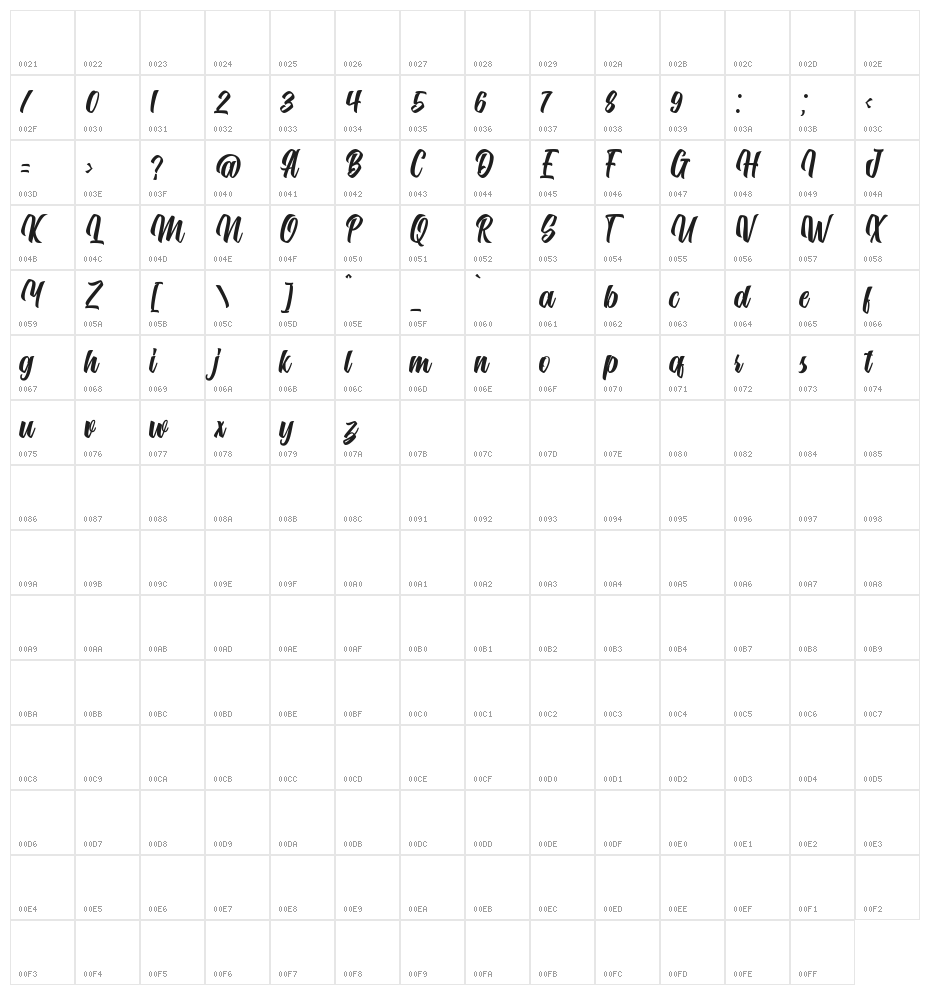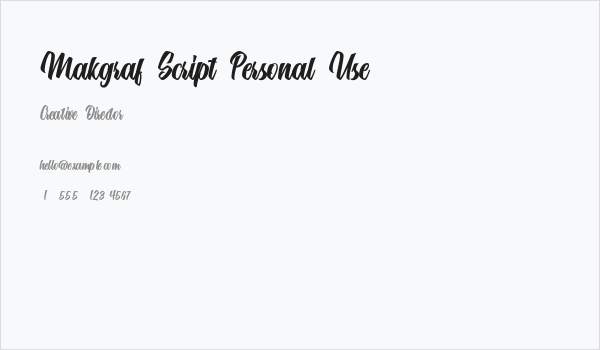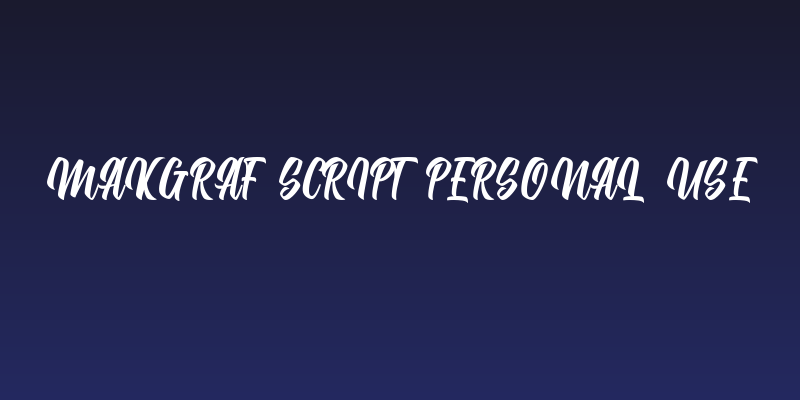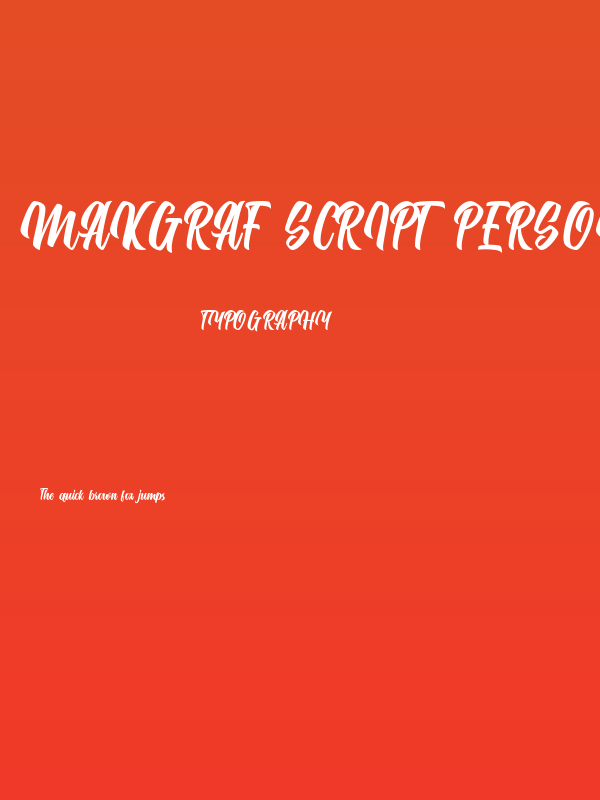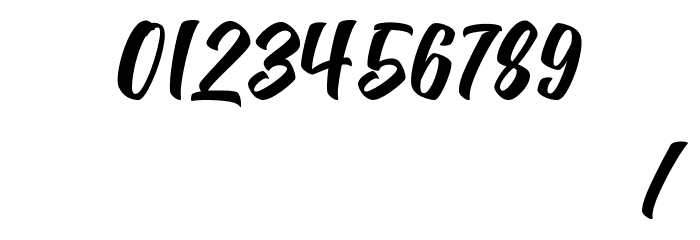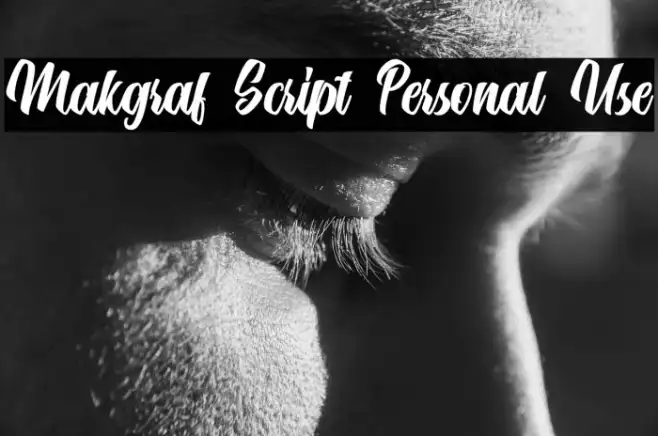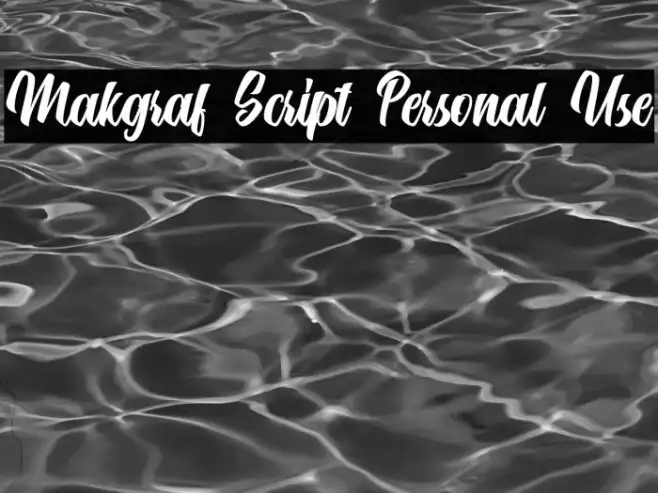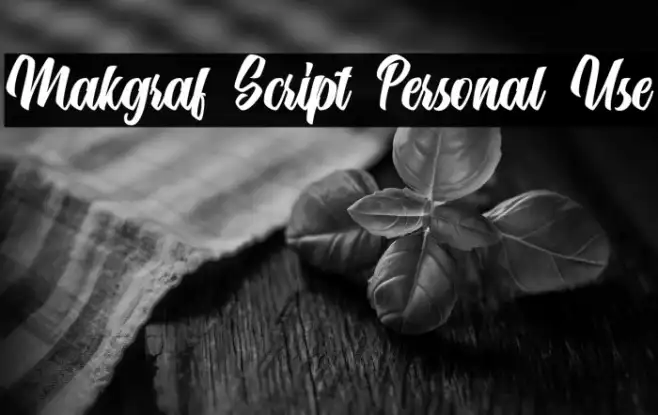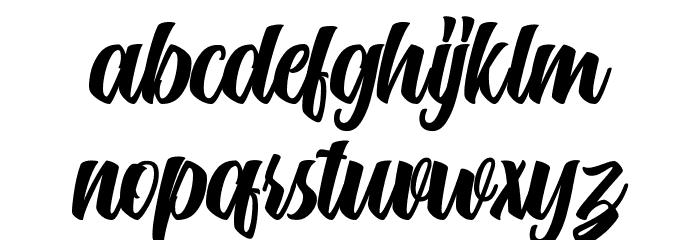
Makgraf Script Personal Use Font
Makgraf Script Personal Use Description
This font features a bold and expressive script style, characterized by its flowing, cursive letterforms that exude a sense of elegance and dynamism. The uppercase letters are particularly striking, with sweeping curves and a sense of movement that makes each character stand out. The lowercase letters maintain this fluidity, offering a harmonious blend of style and readability. The numbers are equally bold, maintaining the script's overall aesthetic. This font is ideal for projects that require a personal touch, such as invitations, branding, or any design that aims to convey sophistication and flair.
| Proposed Projects | Ideal for invitations, branding, and designs needing a personal, elegant touch. |